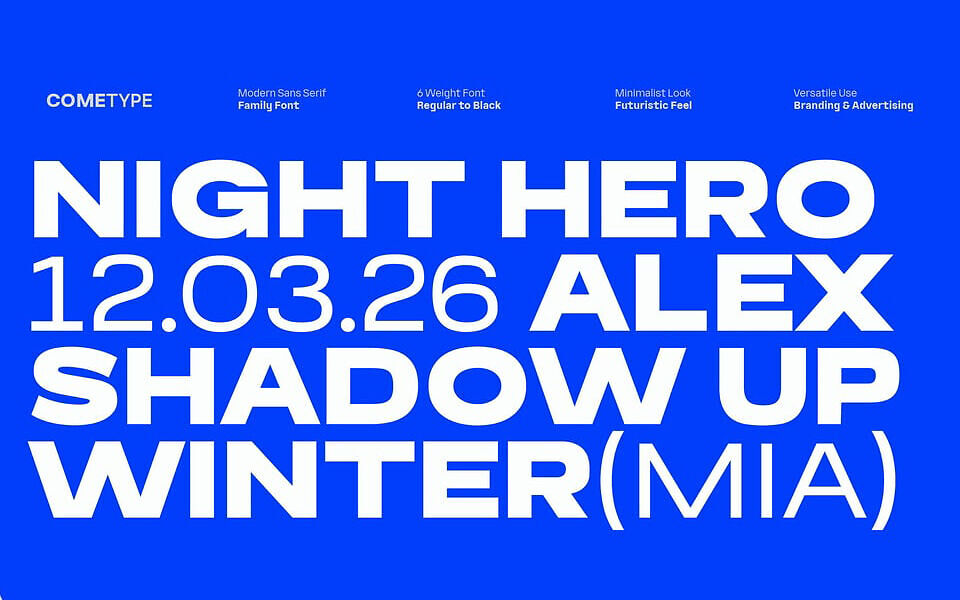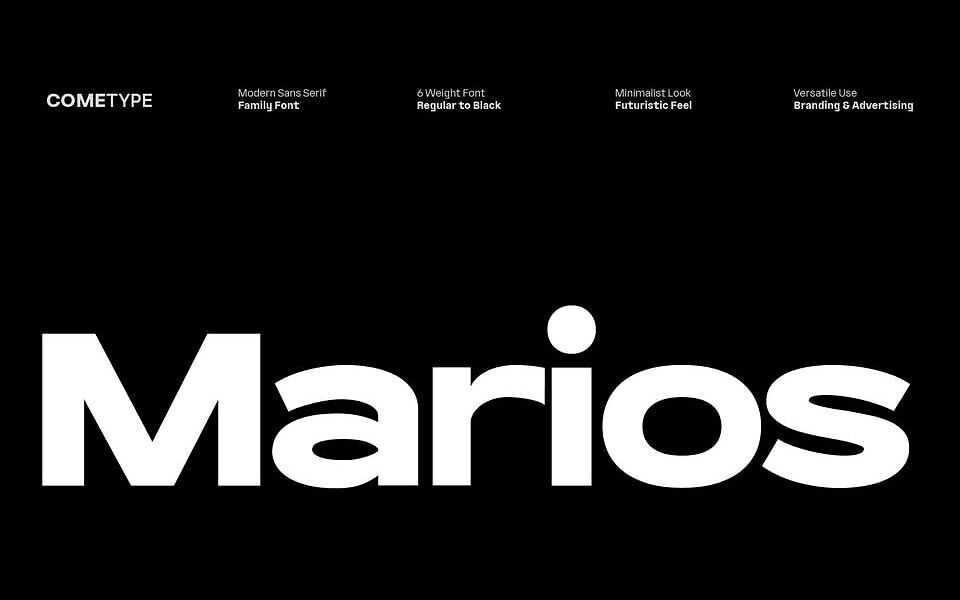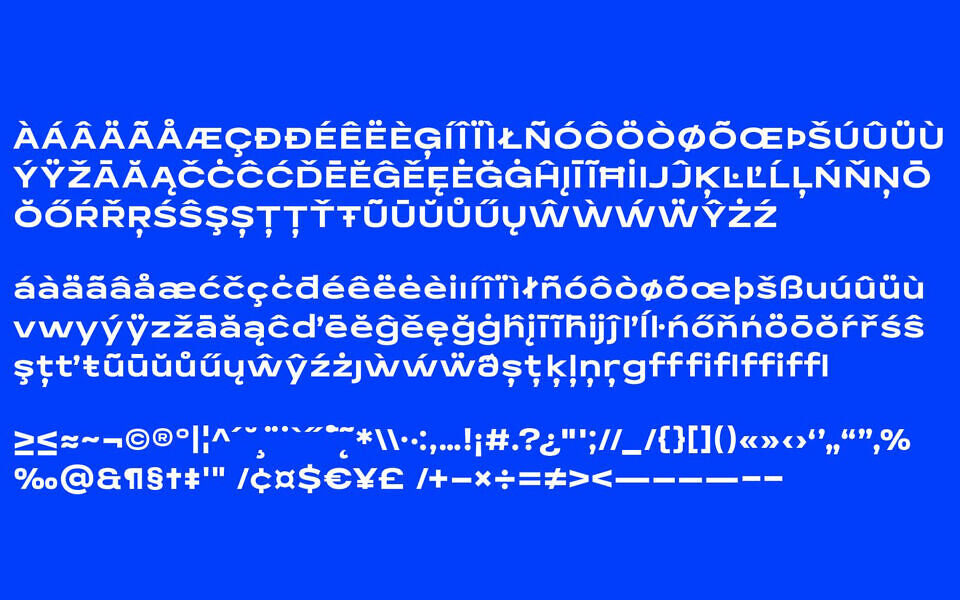
Marios is a modern sans serif font with a semi-width design that combines a futuristic and minimalist feel. With 6 available weights, from Regular to Black, Marios offers flexibility for a variety of design needs.
This font is perfect for use in branding, editorial, UI/UX, and other applications. Its clean and precise design gives a modern feel that fits a variety of contemporary typography needs, whether for logos, websites, applications, or printed materials.